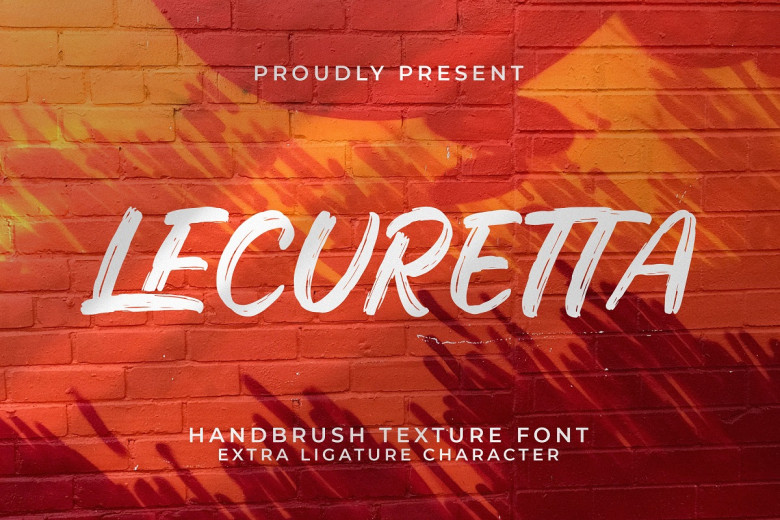
Lecuretta Font
Lecuretta is an ultramodern brush font with effortless elegance. Featuring dynamic brush strokes, natural flow, and handwritten feel that lend a handcrafted quality to designs such as logos or social media graphics. Lecuretta captures contemporary design while adding playful details – it makes the ideal complement to modern designs with its playful flair!
Lecuretta Modern Brush Font